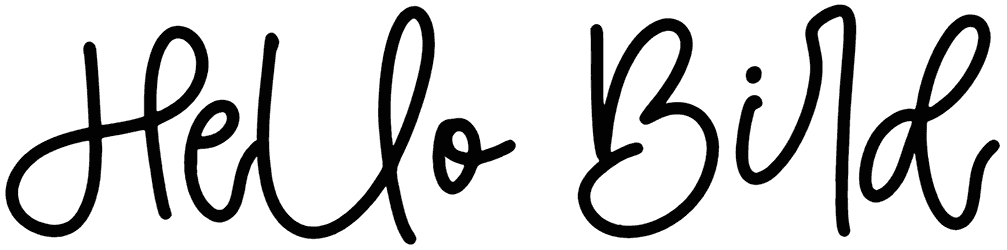
Hello Bird Font
There’s nothing better than Hello Bird to add a personal touch to your writing. This handwritten font accurately imitates the movements of the human hand and therefore can create a one-to-one connection with your audience.
The presence of this human and natural feeling in the 2 styles of this scrapbook font has made even its illegibility not noticeable, and most designers who are busy designing personal letters, intimate logos, and friendly advertisements choose it.